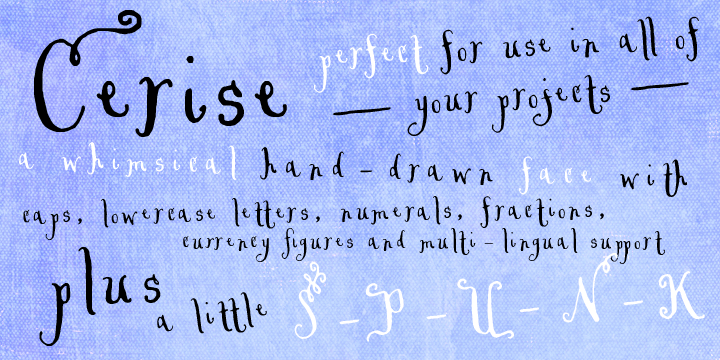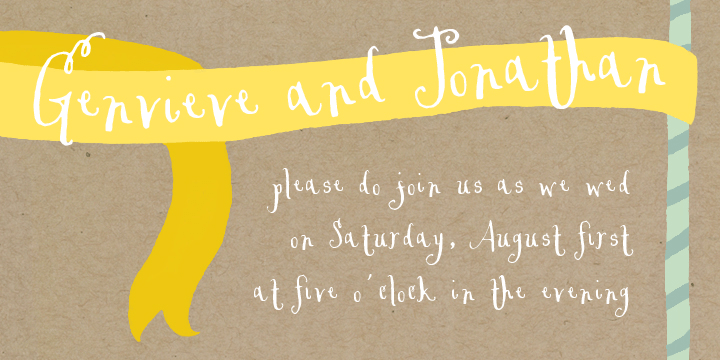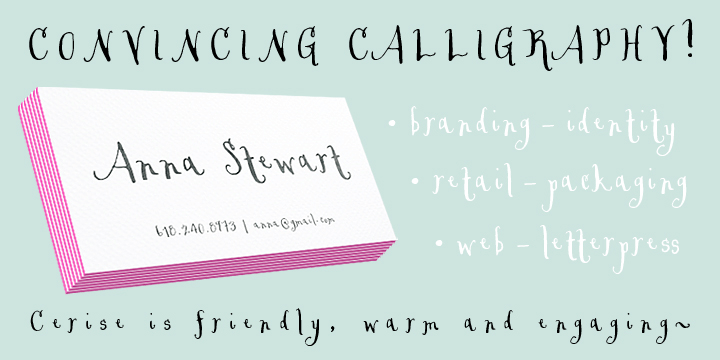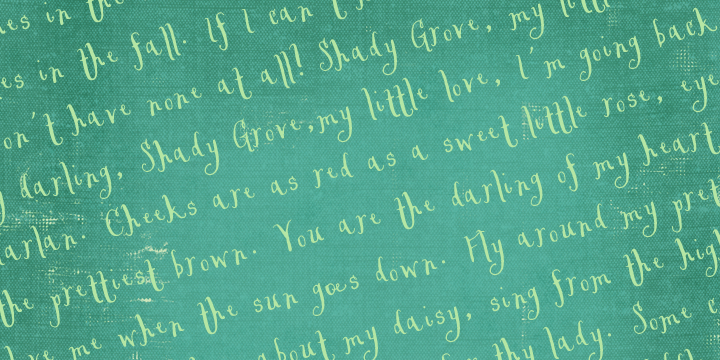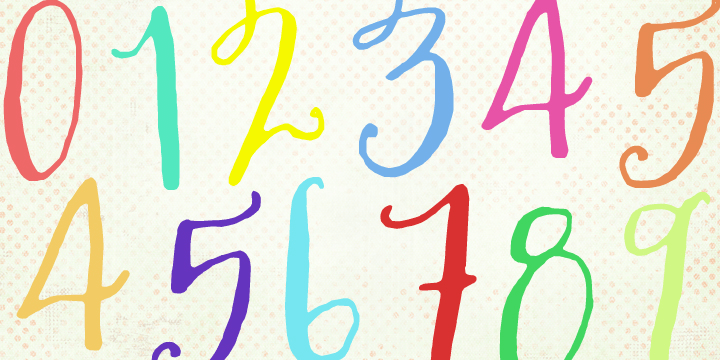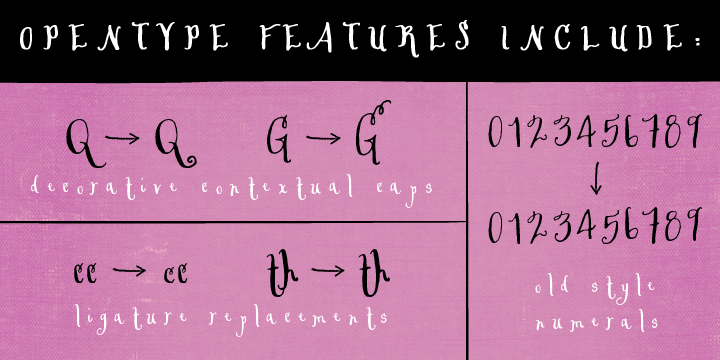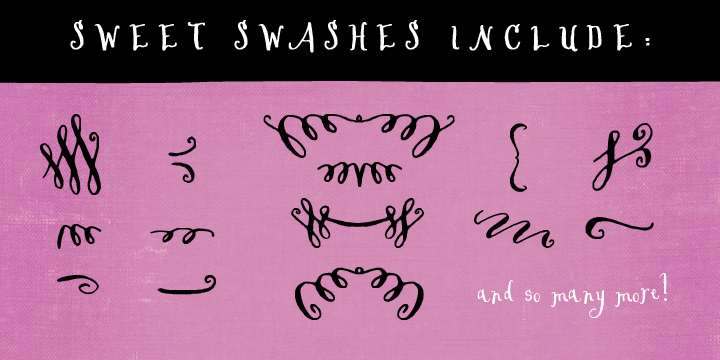
Cerise
Font Family by Magpie Paper Works
Cerise from Magpie Paper Works is a sweet, hand-lettered font ready for any use. She's full of Opentype features that mix & match for a convincing calligraphy effect. Cerise includes decorative contextual caps, double-letter ligatures, discretionary ligatures, and old-style numerals as well as 62 coordinating strokes and swashes.